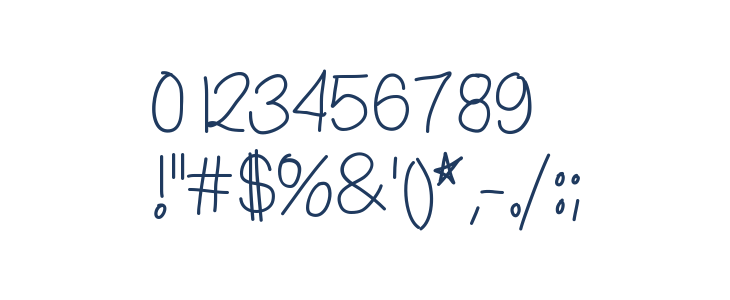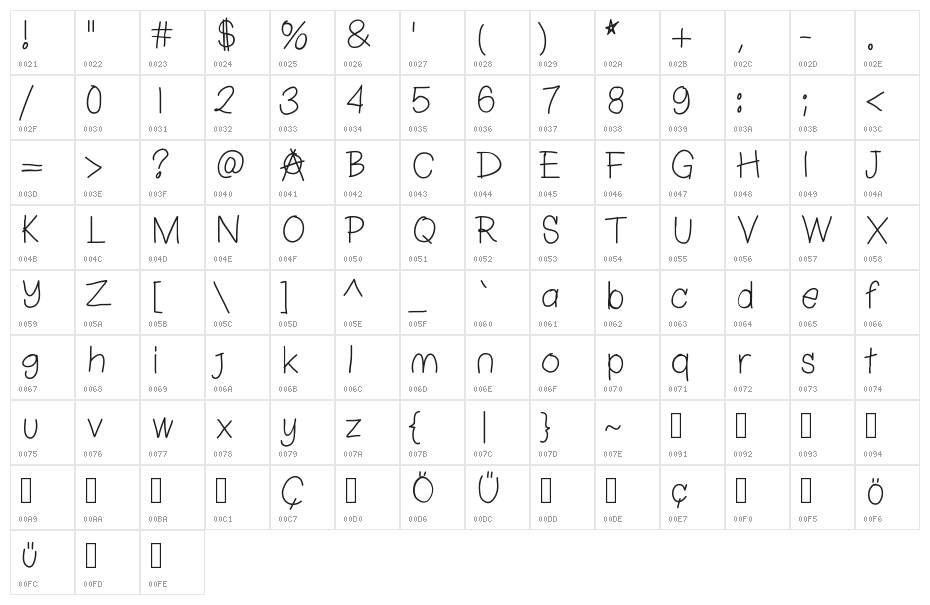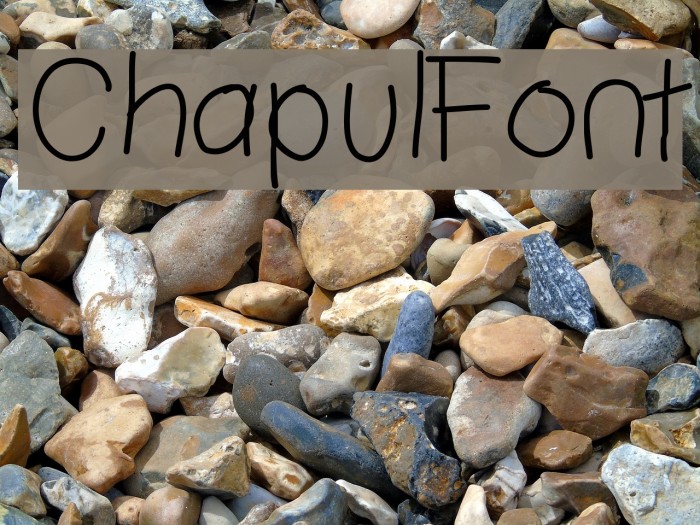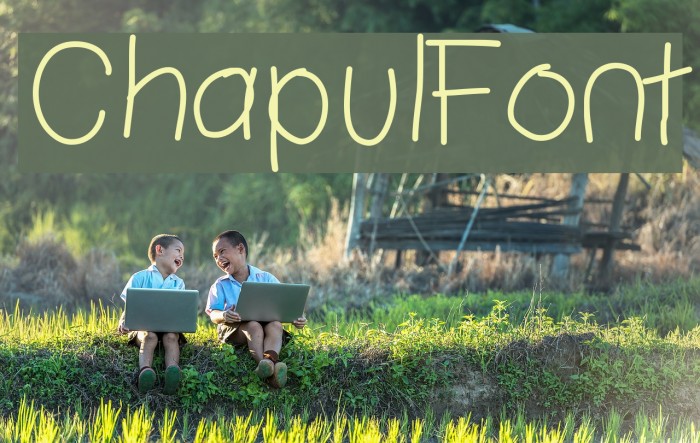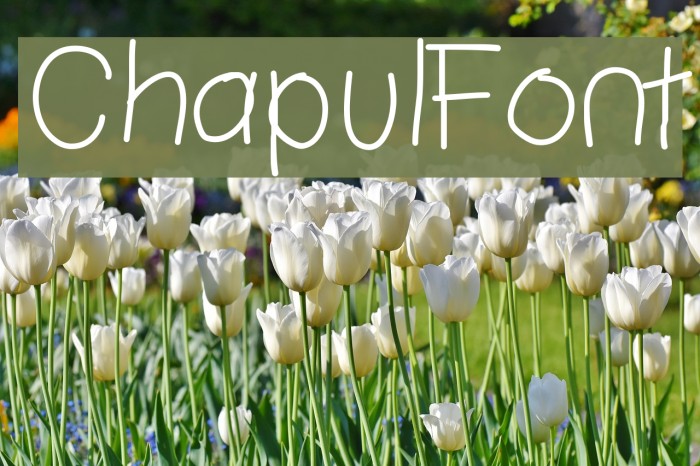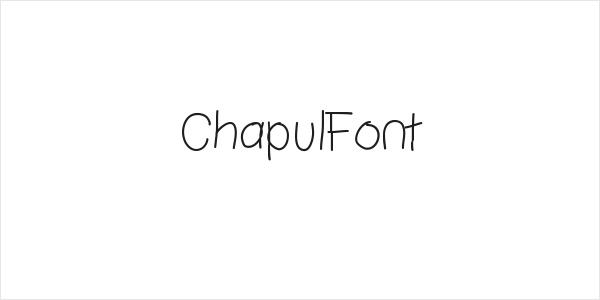
ChapulFont Font
ChapulFont Description
This font features a playful and casual handwritten style, characterized by its rounded and slightly irregular letterforms. The strokes are consistent in thickness, giving it a uniform appearance while maintaining a friendly and approachable vibe. The uppercase and lowercase letters are well-balanced, with a slight tilt that adds to its informal charm. The numerals and special characters are designed to match the overall aesthetic, making it versatile for various uses. Its simplicity and readability make it suitable for both digital and print media.
| Use Case | Headlines, Informal text, Branding |
| Proposed Projects | Ideal for children's books, greeting cards, casual branding, and social media graphics. |